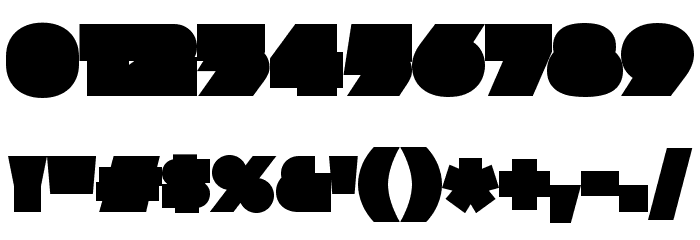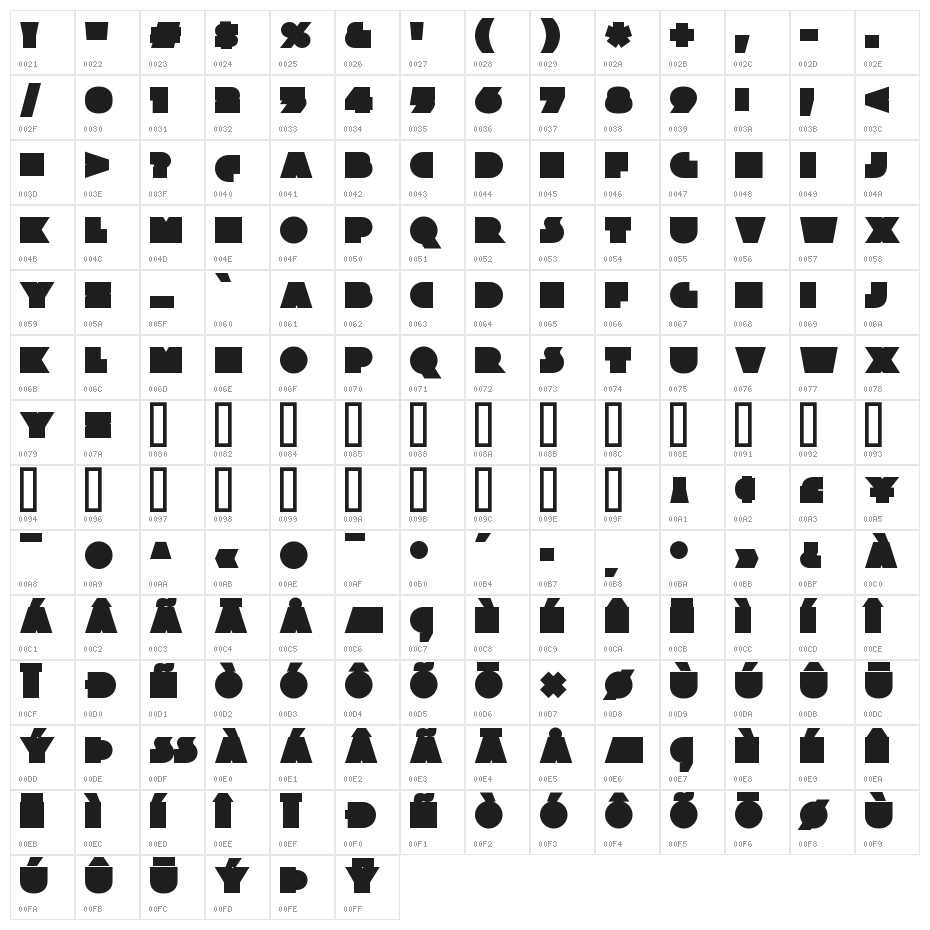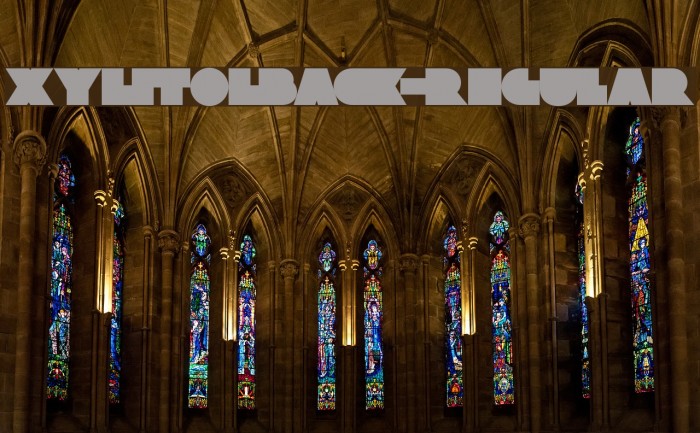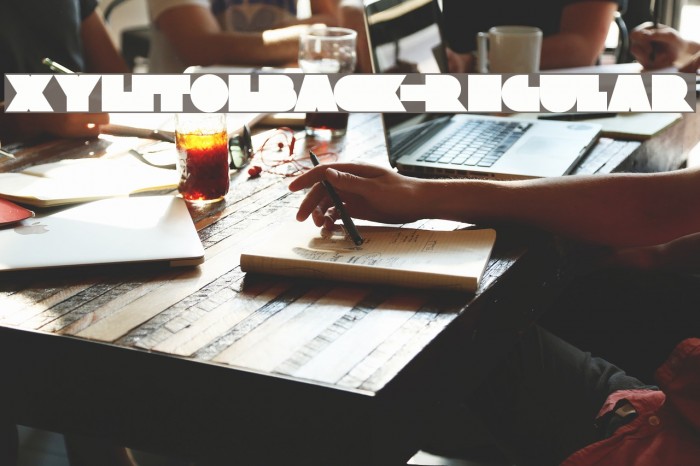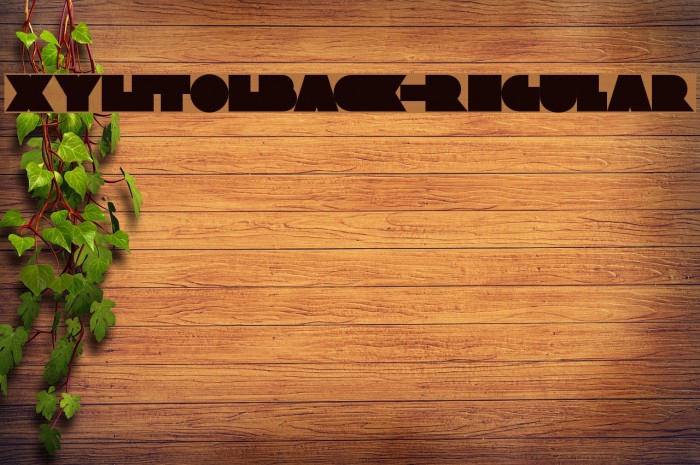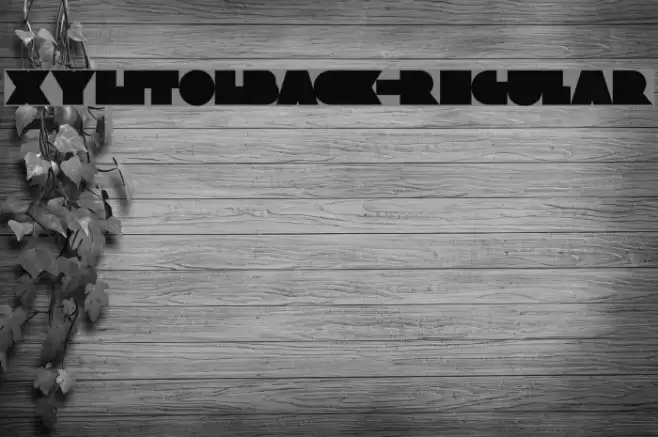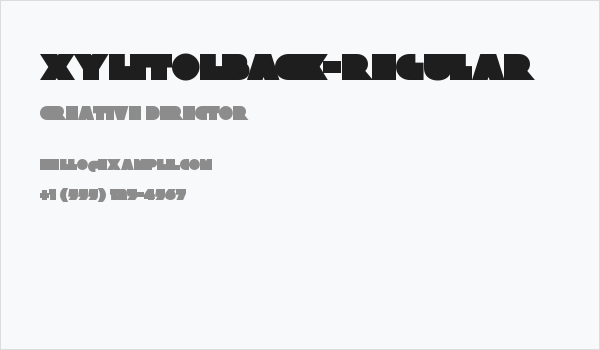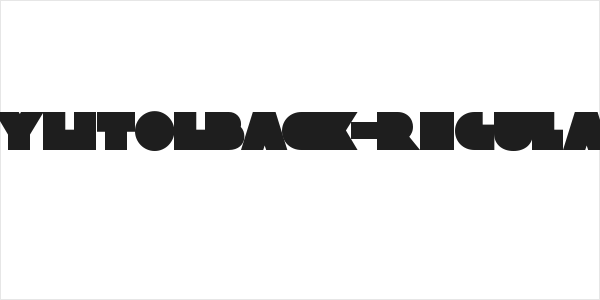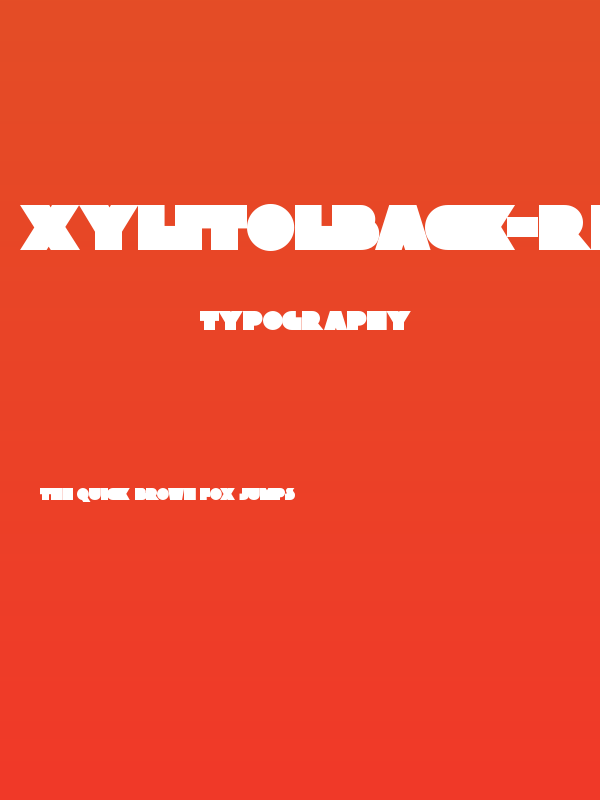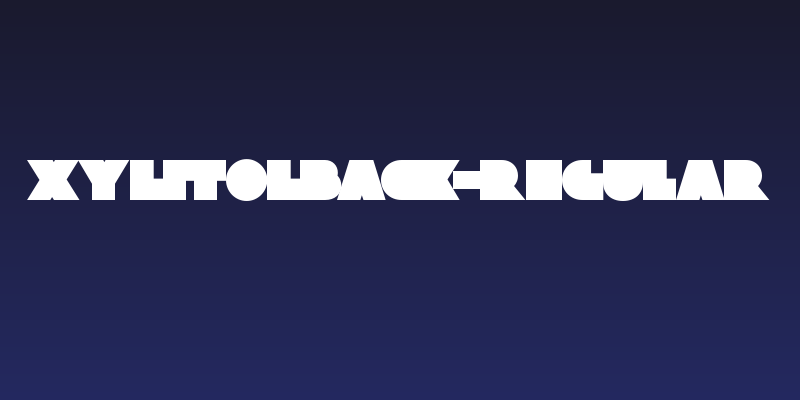
XylitolBack-Regular Font
XylitolBack-Regular Description
This font features bold, geometric shapes with a strong emphasis on circular and angular forms. The characters are constructed with thick strokes, creating a striking and impactful appearance. The uppercase letters are particularly dominant, with a consistent height and width that contribute to a uniform look. The lowercase letters maintain the same boldness, ensuring readability while retaining the font's distinctive style. Numbers and special characters follow the same design principles, making them easily recognizable and cohesive with the rest of the typeface. The overall design is modern and eye-catching, suitable for projects that require a bold statement.
| Proposed Projects | Ideal for branding, posters, headlines, and any design that requires a bold, modern aesthetic. |